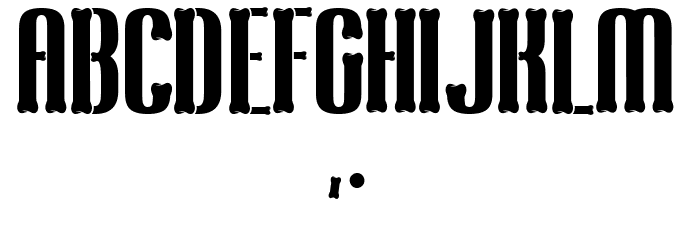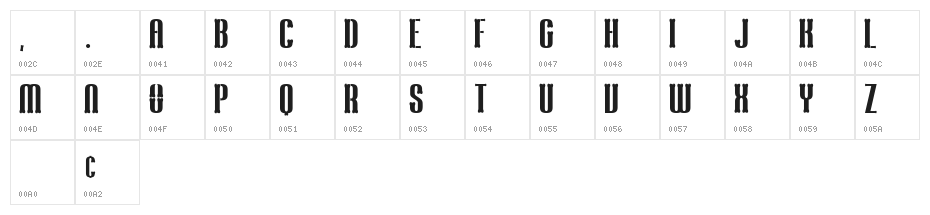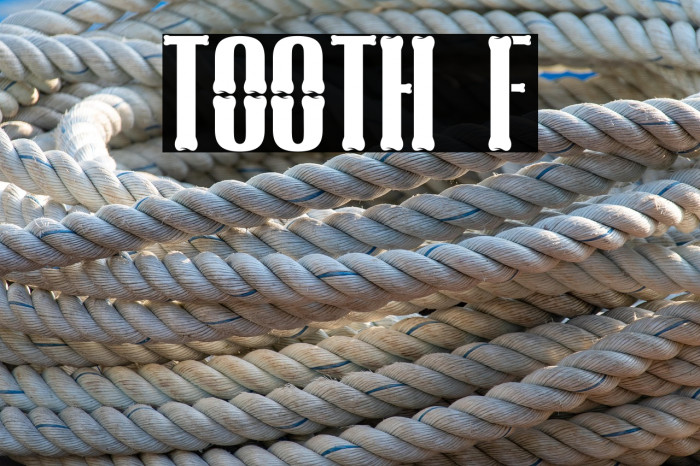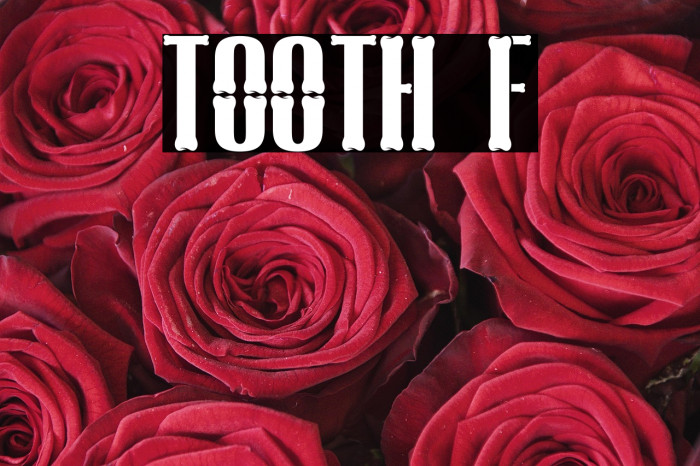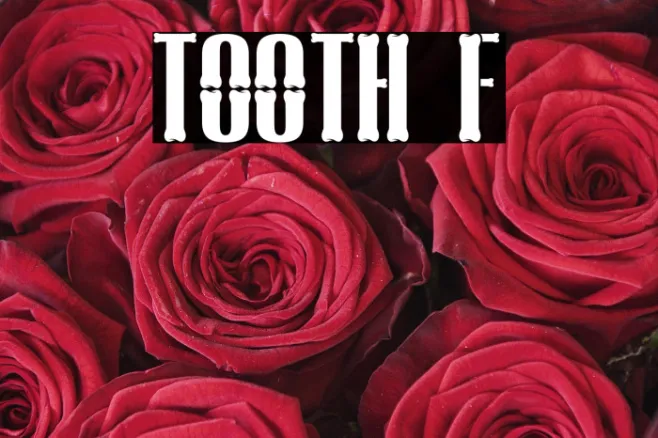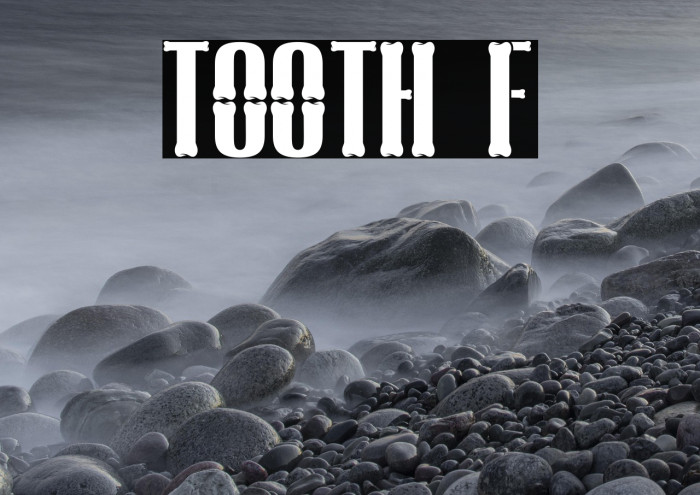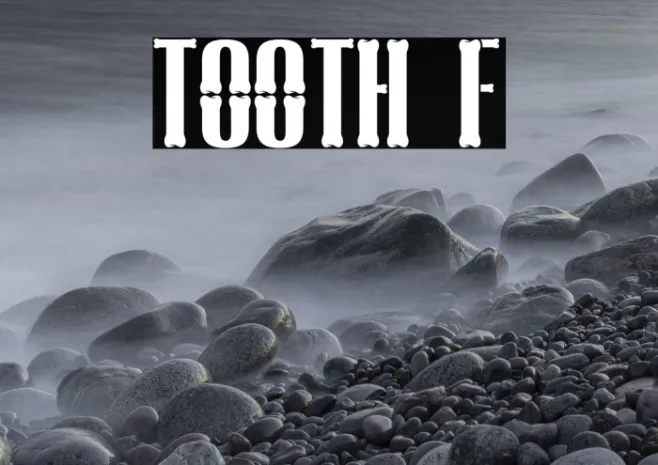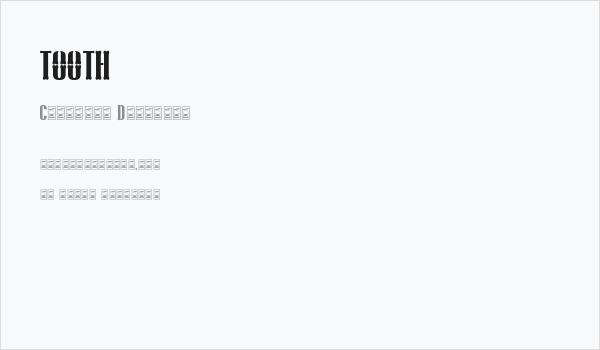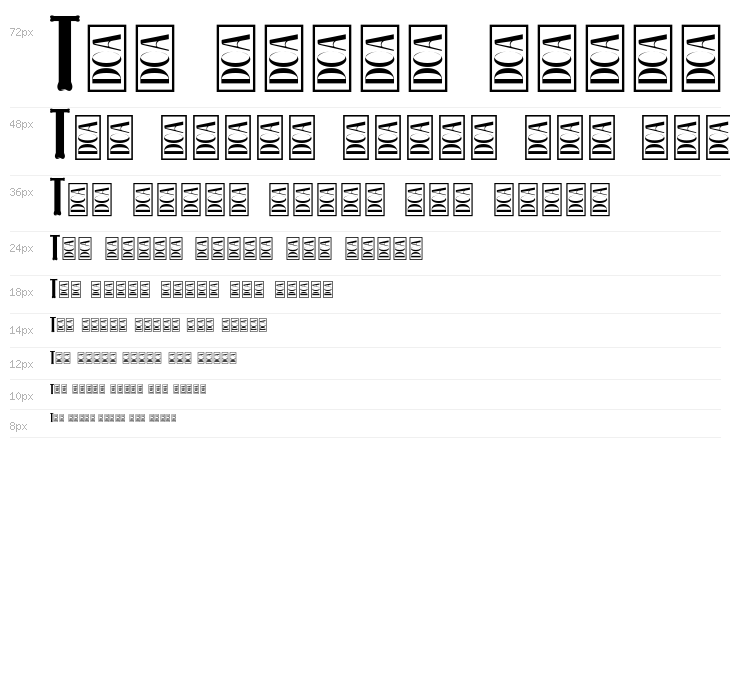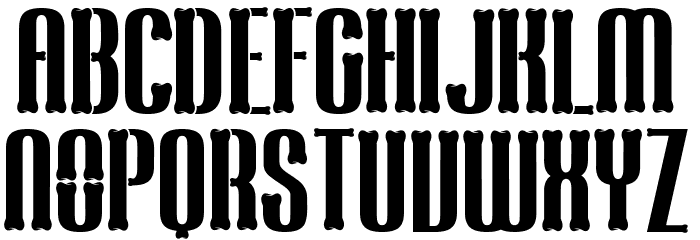
TOOTH Font
TOOTH Description
This font features a bold and striking design with a distinctly vintage flair. The characters are tall and narrow, with thick vertical strokes and thin horizontal lines, creating a high contrast that enhances readability. The serifs are pronounced and add a touch of elegance, while the overall structure maintains a sense of strength and stability. The uppercase letters are uniform in height, and the spacing between characters is tight, which contributes to a cohesive and compact appearance. This font is ideal for making a strong visual impact, suitable for headlines and titles that require attention.
| Proposed Projects | Ideal for vintage-themed posters, book covers, branding, and logo design. |